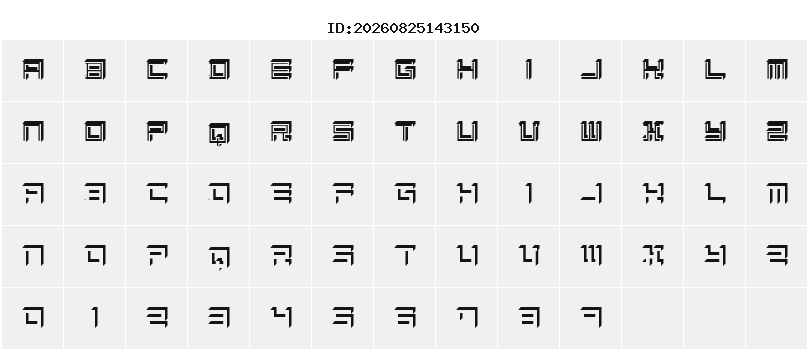
SQRT Preview
About SQRT.ttf
SQRT.ttf is a modern, elegant sans-serif font designed for ultimate readability and visual harmony. Perfect for branding, headlines, web design, and print materials.